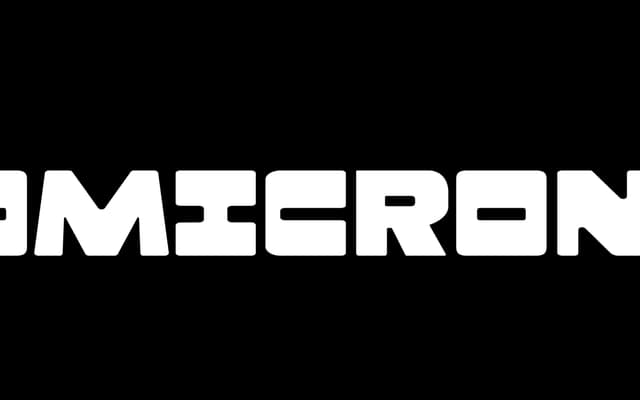
A chunky, irregular display face that borrows from hand-rendered lettering while retaining enough structure to stay legible.
Omicron sits in the space between casual hand lettering and structured type design, with irregular forms and chunky strokes giving it a raw, drawn quality. It retains sufficient legibility to function in display settings where personality is the priority. Well-suited to branding, posters and editorial contexts that call for an imperfect, handmade aesthetic.
Described as an irregular, chunky display face with a hand-rendered style, placing it firmly in the display category with a vernacular, handmade subcategory.